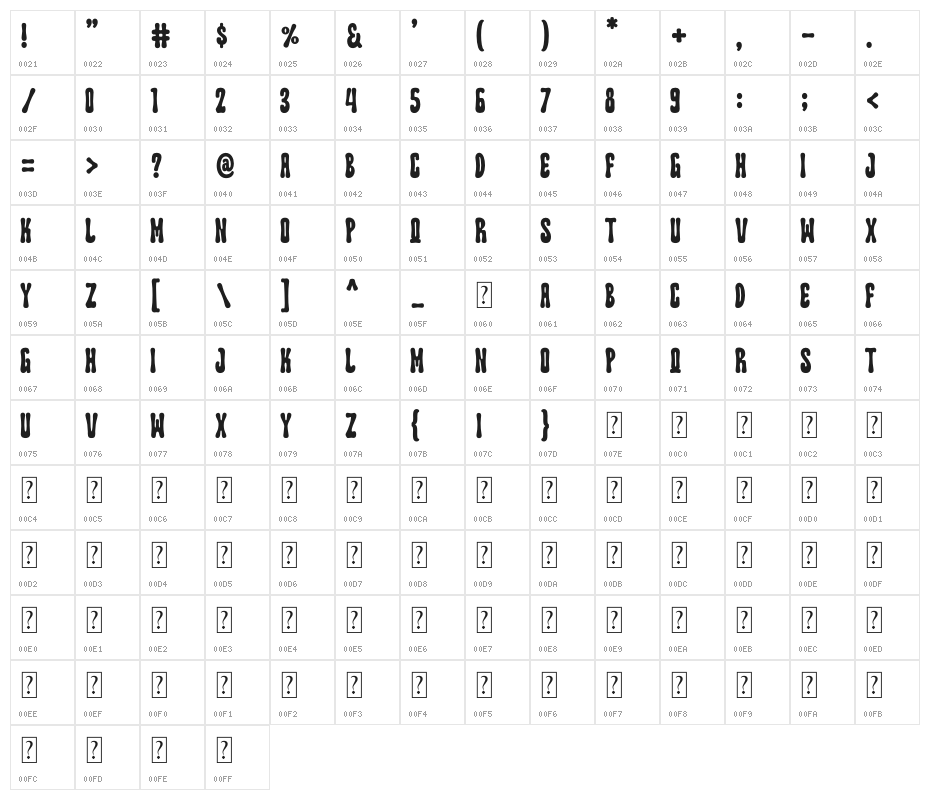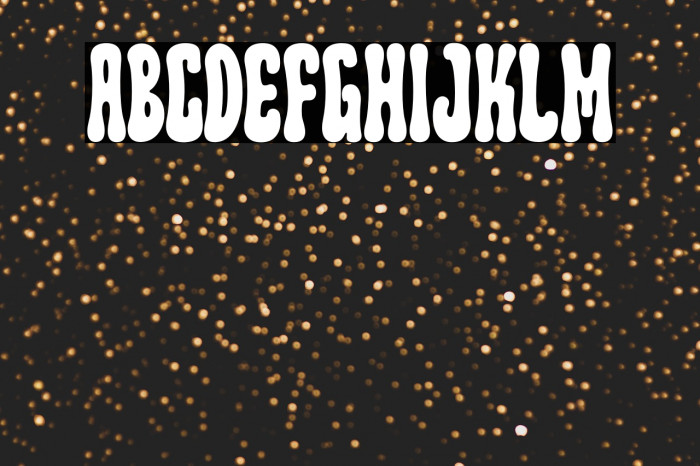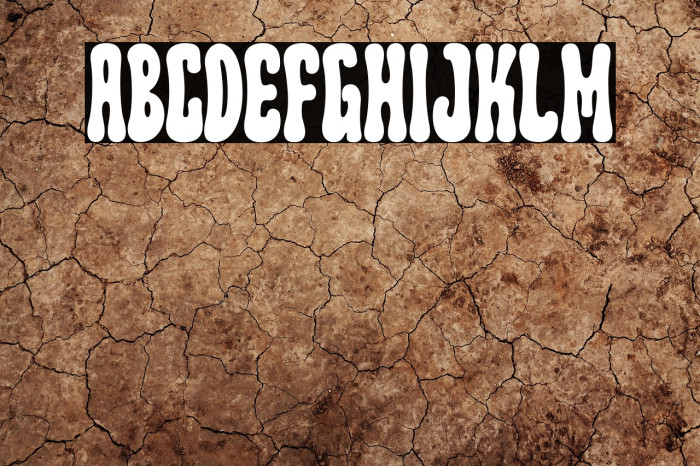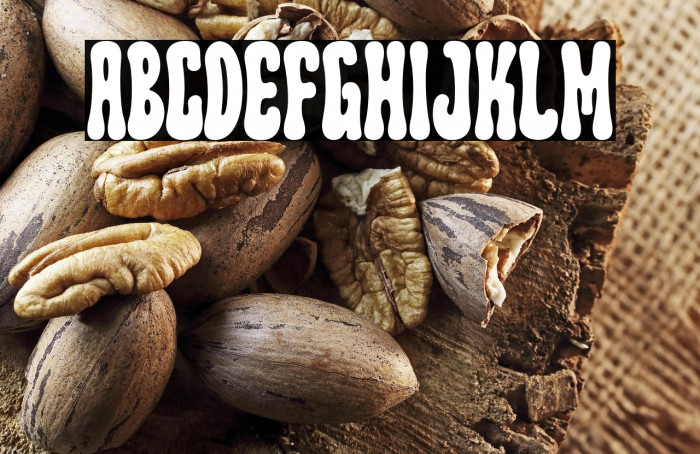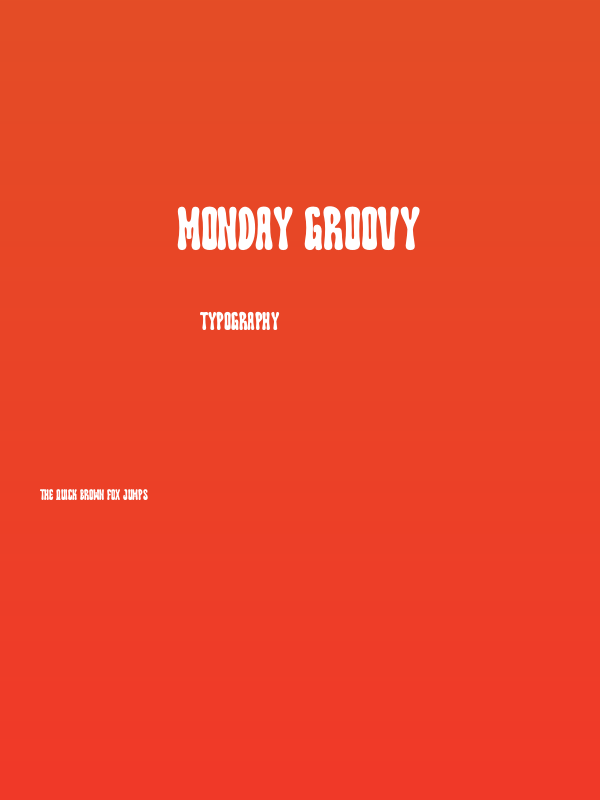
Monday Groovy Font
Monday Groovy Description
This font exudes a playful and retro vibe, characterized by its bold, rounded, and slightly irregular letterforms. The thick strokes and smooth curves give it a groovy, 1970s-inspired aesthetic, making it stand out with a sense of fun and nostalgia. The uppercase and lowercase letters maintain a consistent style, with a slightly condensed appearance that enhances its quirky charm. The numbers and special characters are crafted with the same boldness and whimsy, ensuring a cohesive look across all elements. This font is perfect for projects that aim to capture a vintage or playful spirit.
| Proposed Projects | Ideal for retro-themed posters, music album covers, playful branding, and creative social media graphics. |